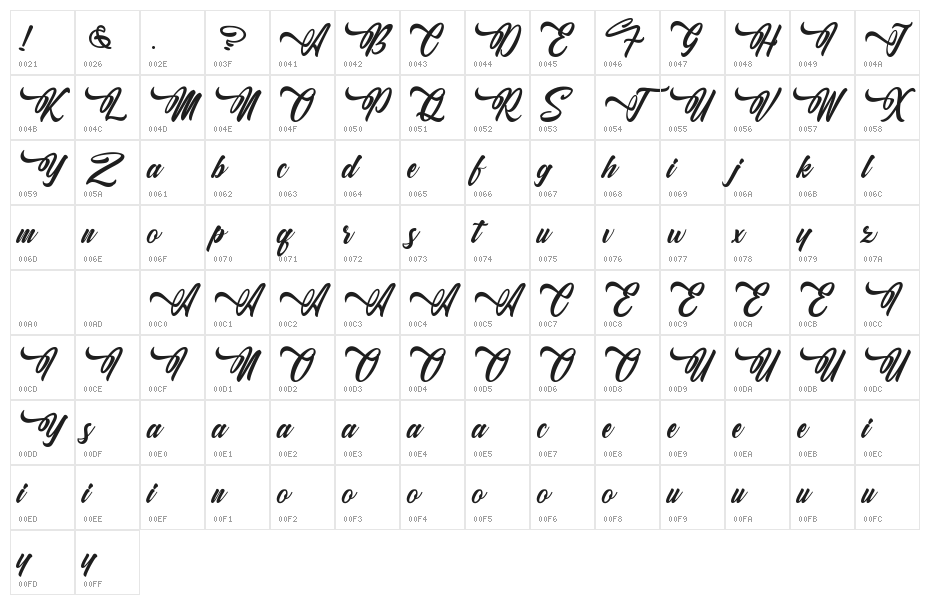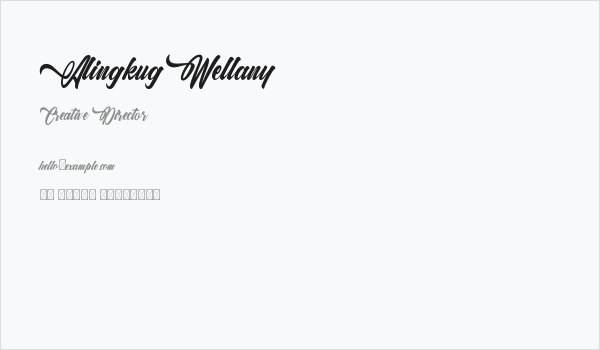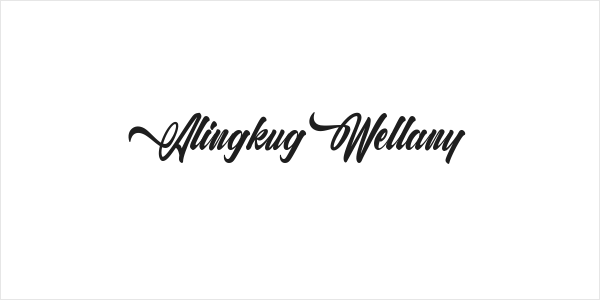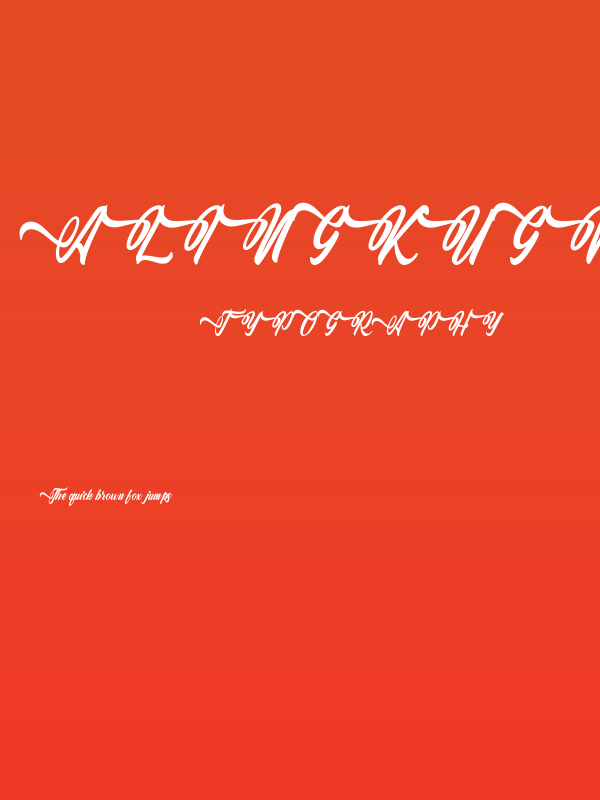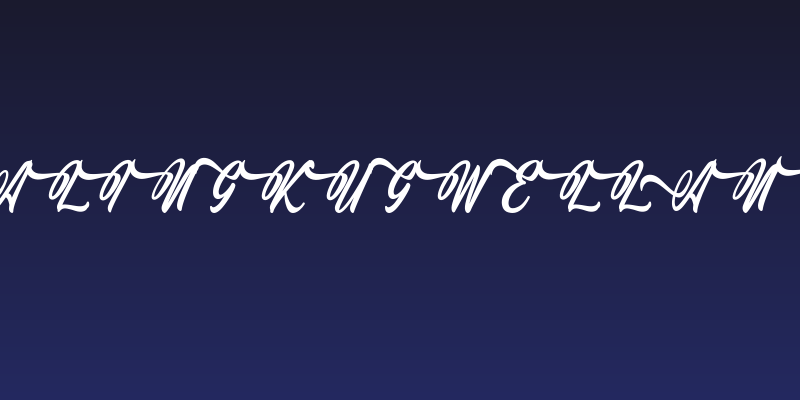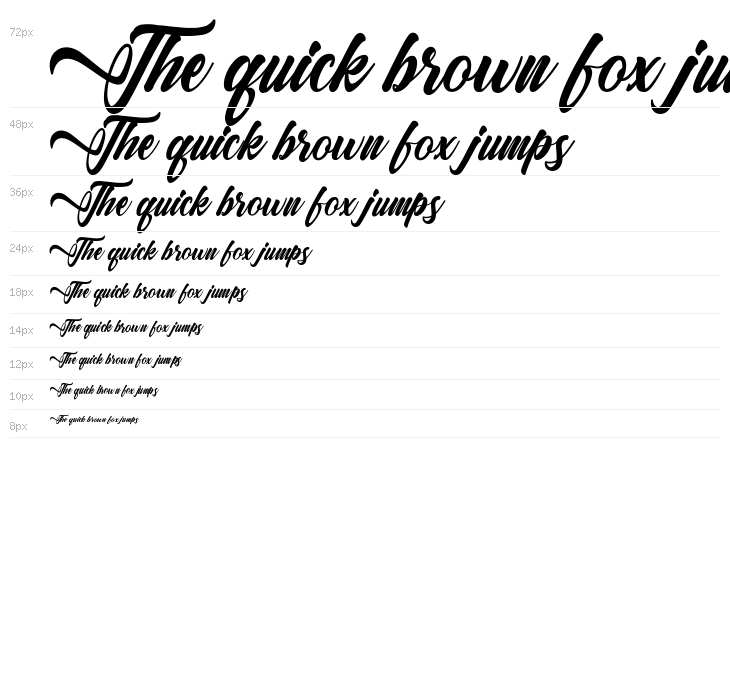
Alingkug Wellany Font
Alingkug Wellany Description
This font features an elegant and flowing script style, characterized by its smooth, cursive strokes and decorative flourishes. The uppercase letters are adorned with intricate swashes, giving them a sophisticated and ornate appearance. The lowercase letters maintain a consistent flow, with each character seamlessly connecting to the next, enhancing the script's fluidity. The numerals and special characters are crafted with the same attention to detail, ensuring a cohesive look across all glyphs. This font exudes a sense of elegance and refinement, making it suitable for projects that require a touch of class and sophistication.
| Proposed Projects | Ideal for wedding invitations, luxury branding, elegant stationery, and high-end product packaging. |